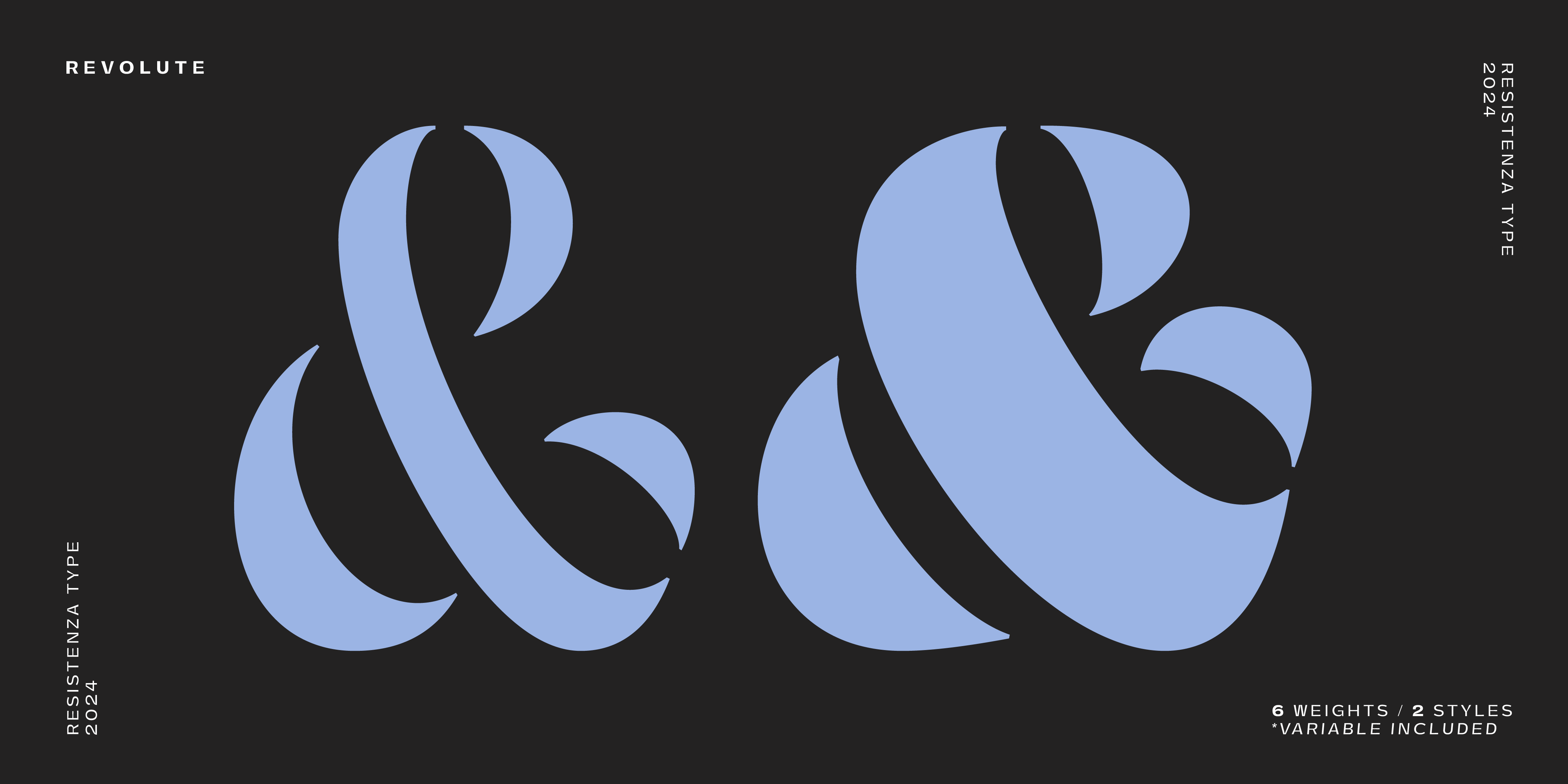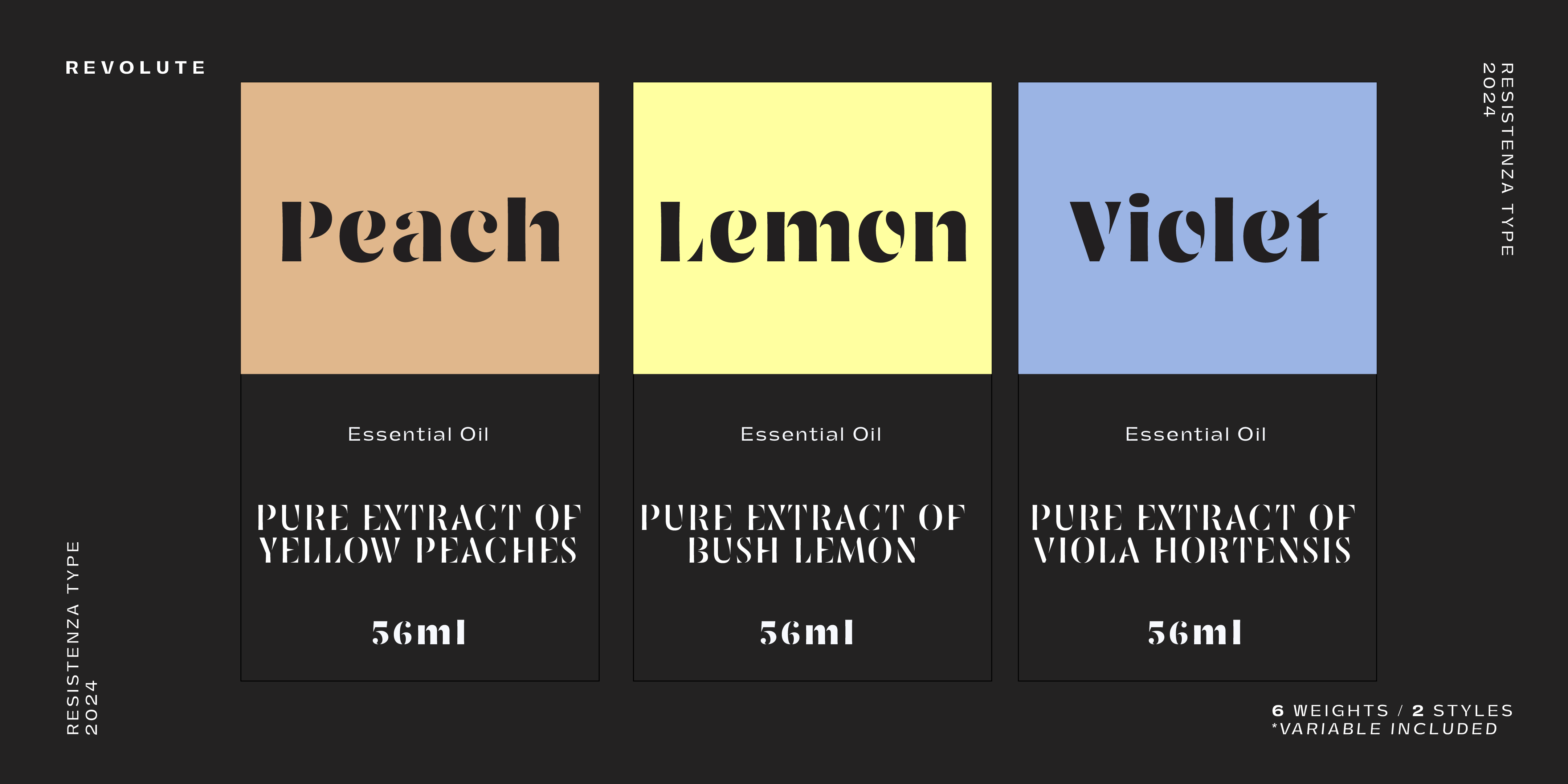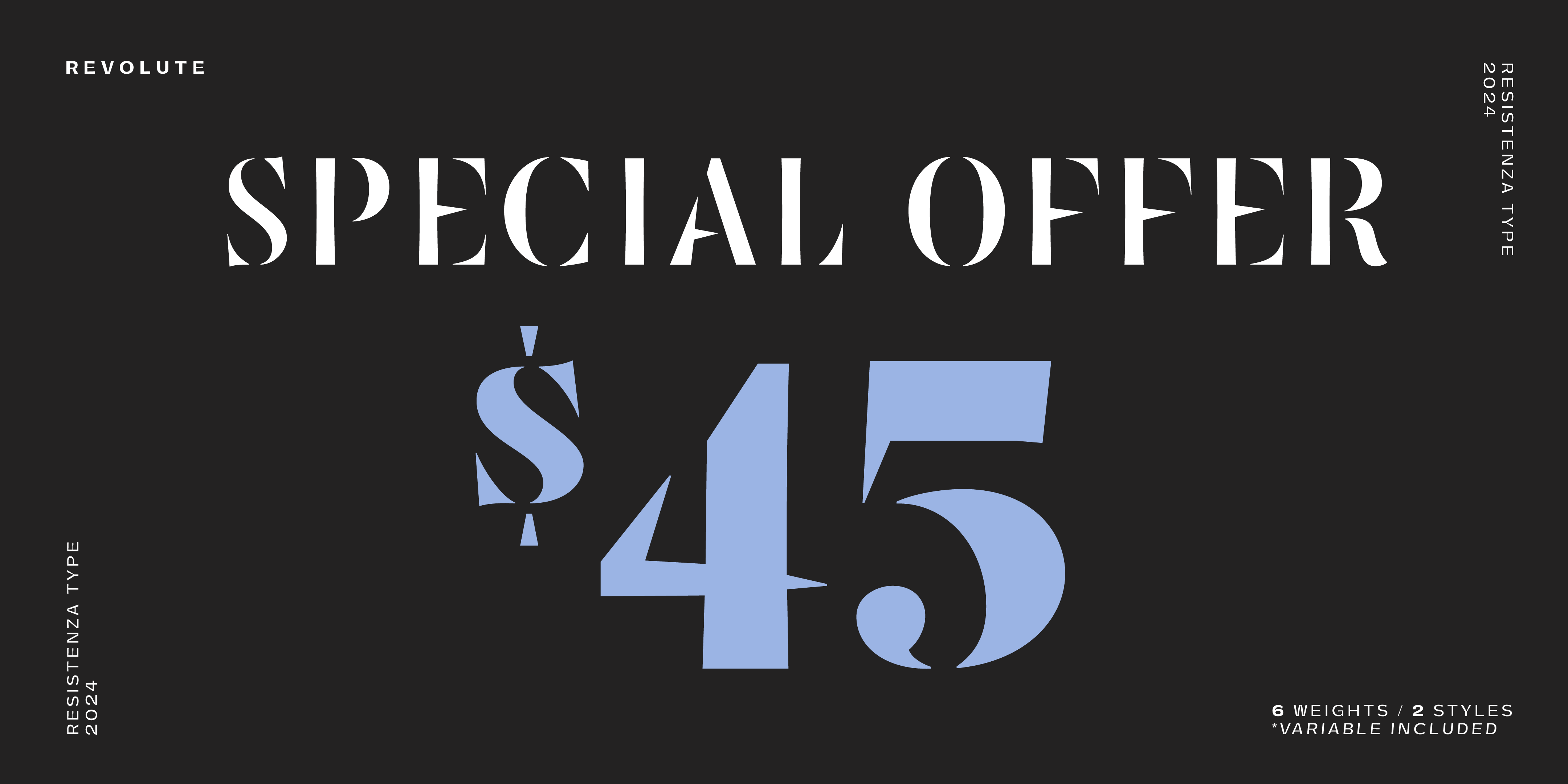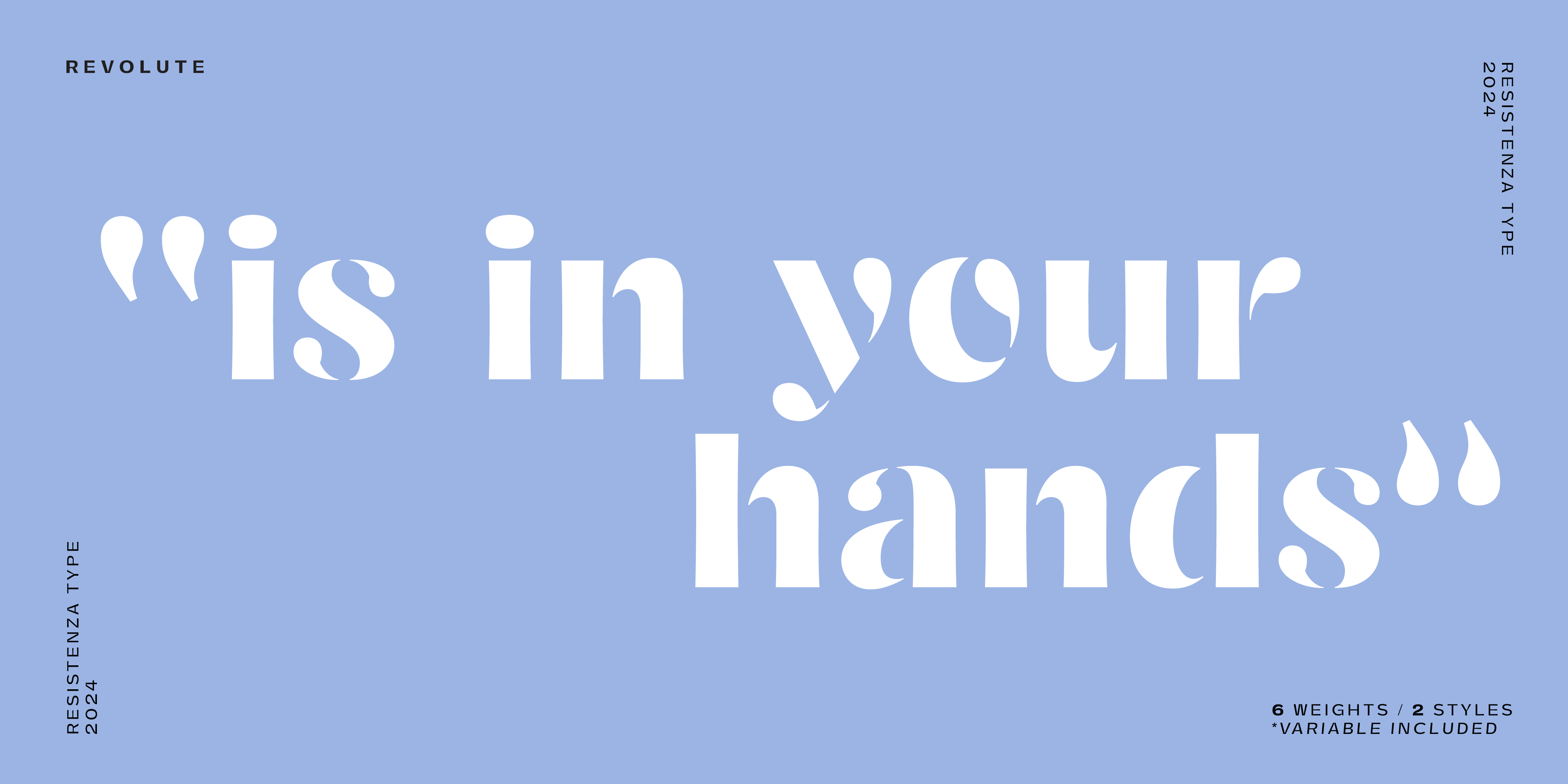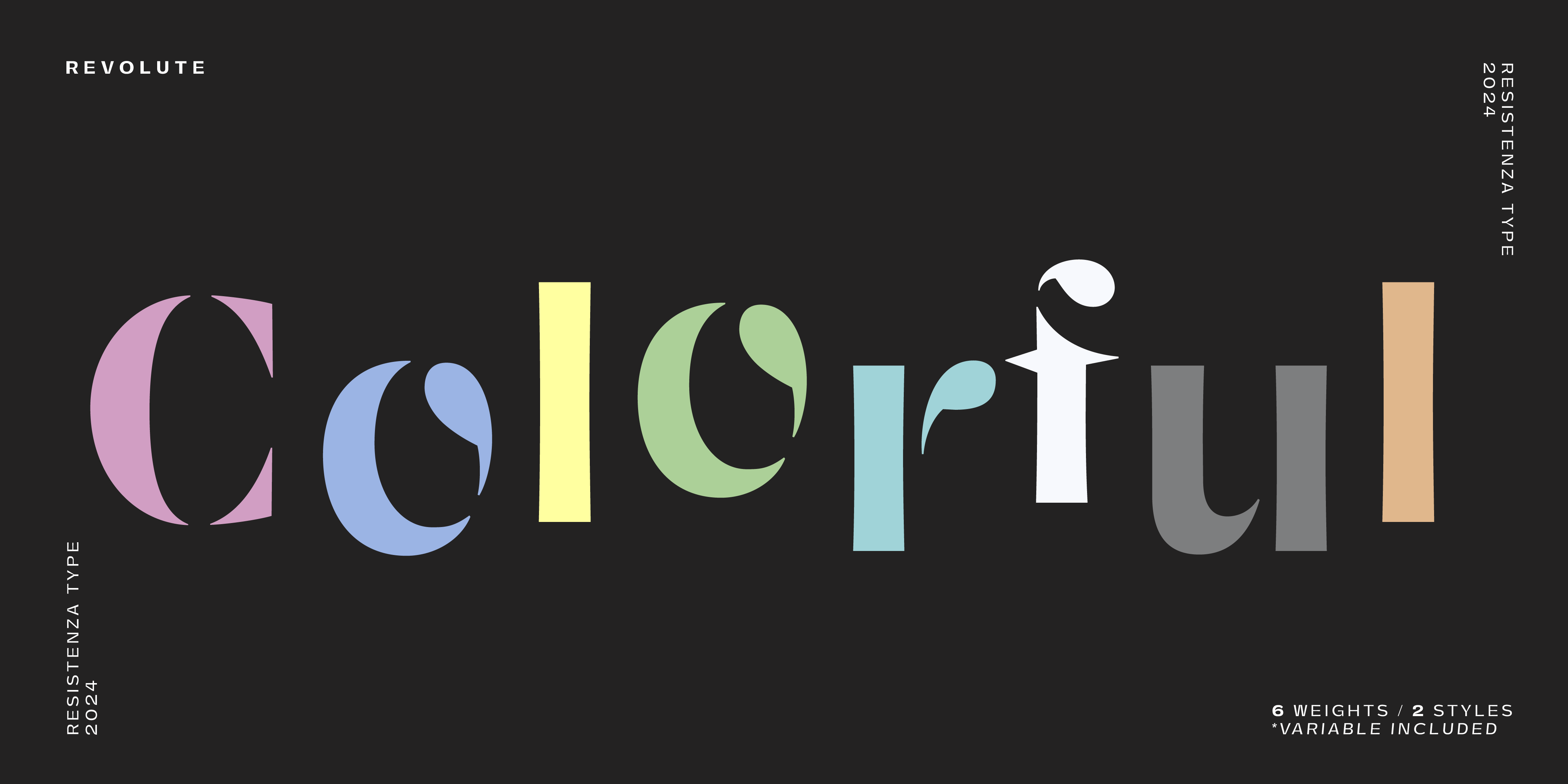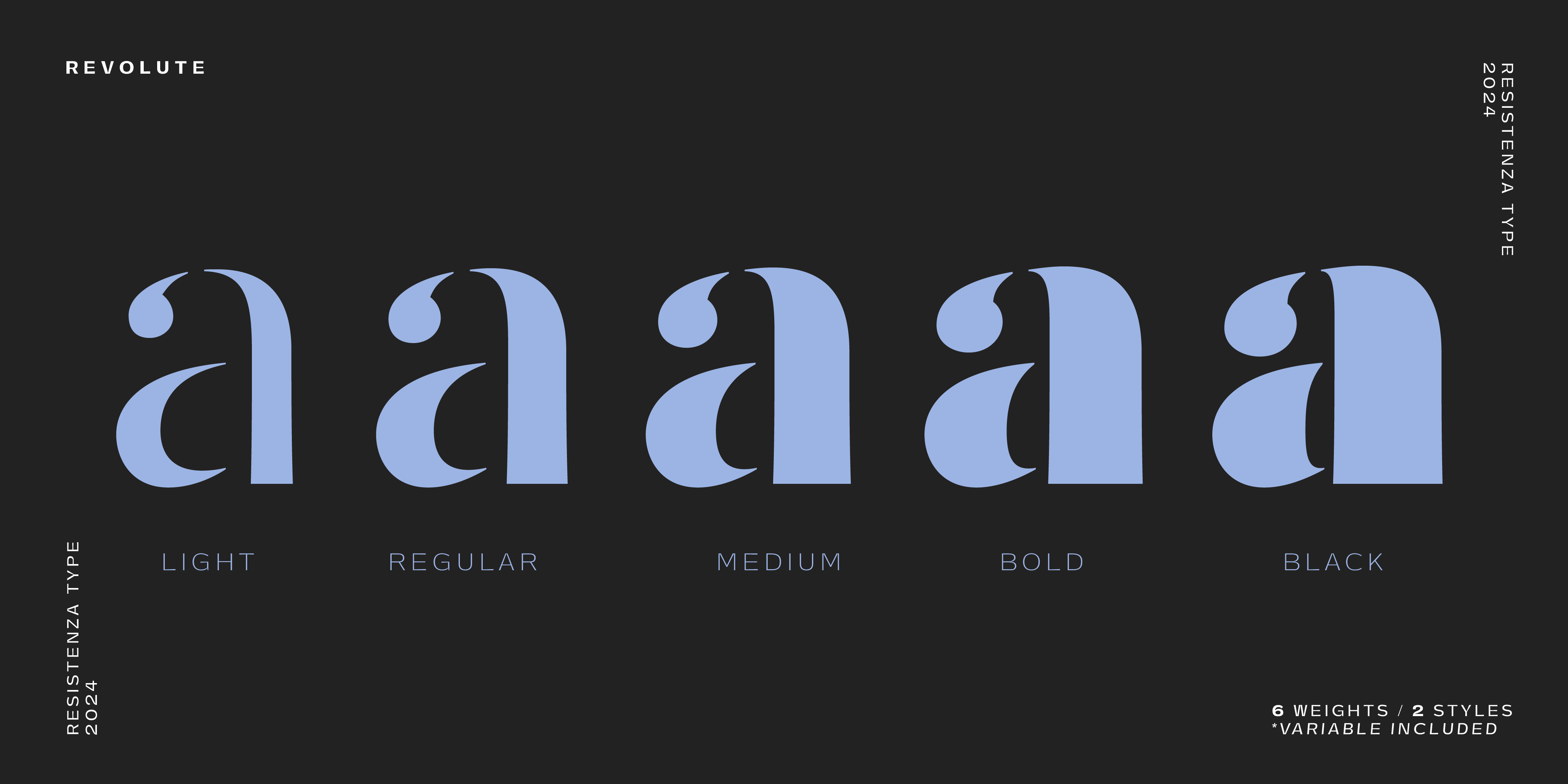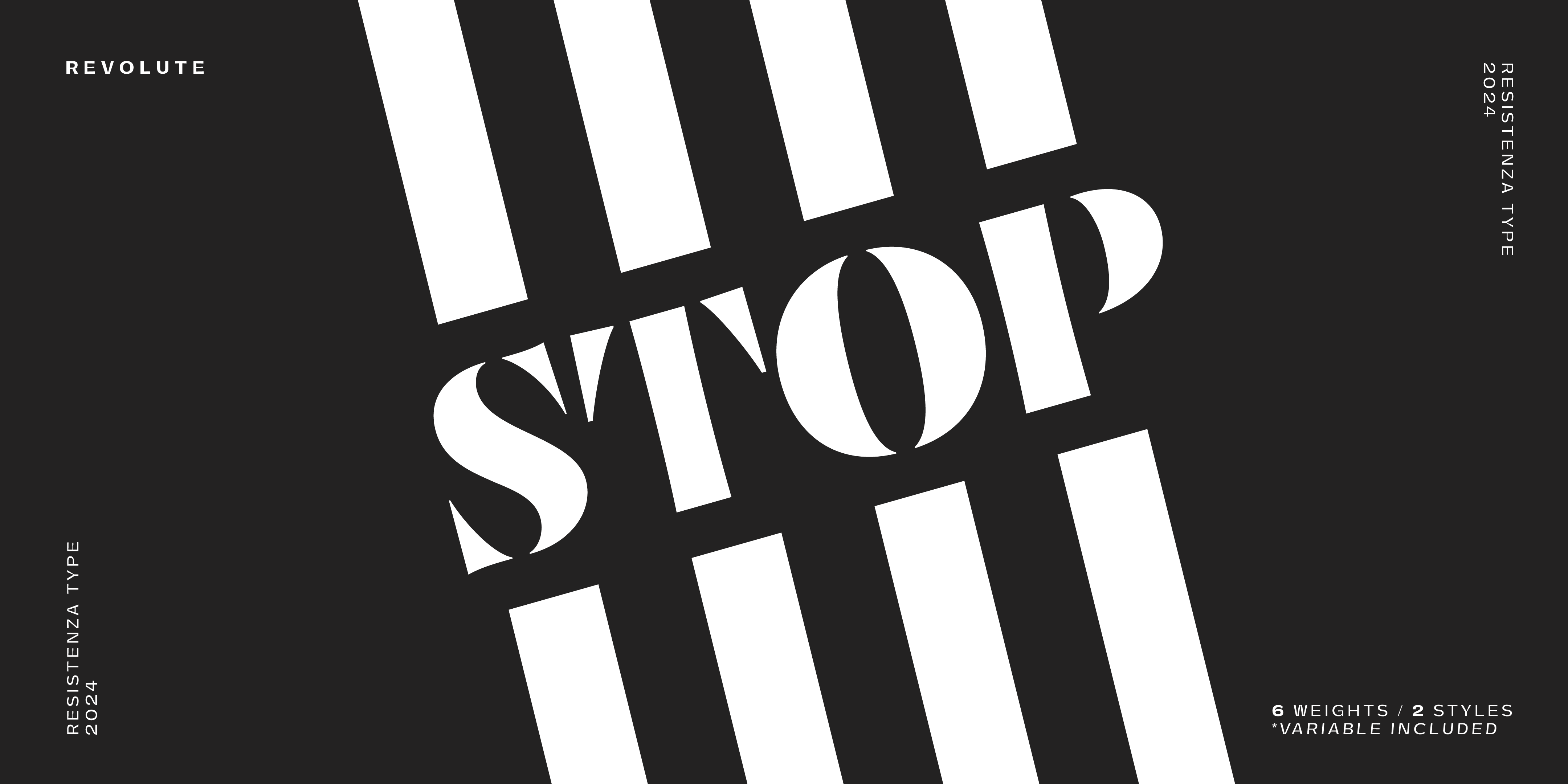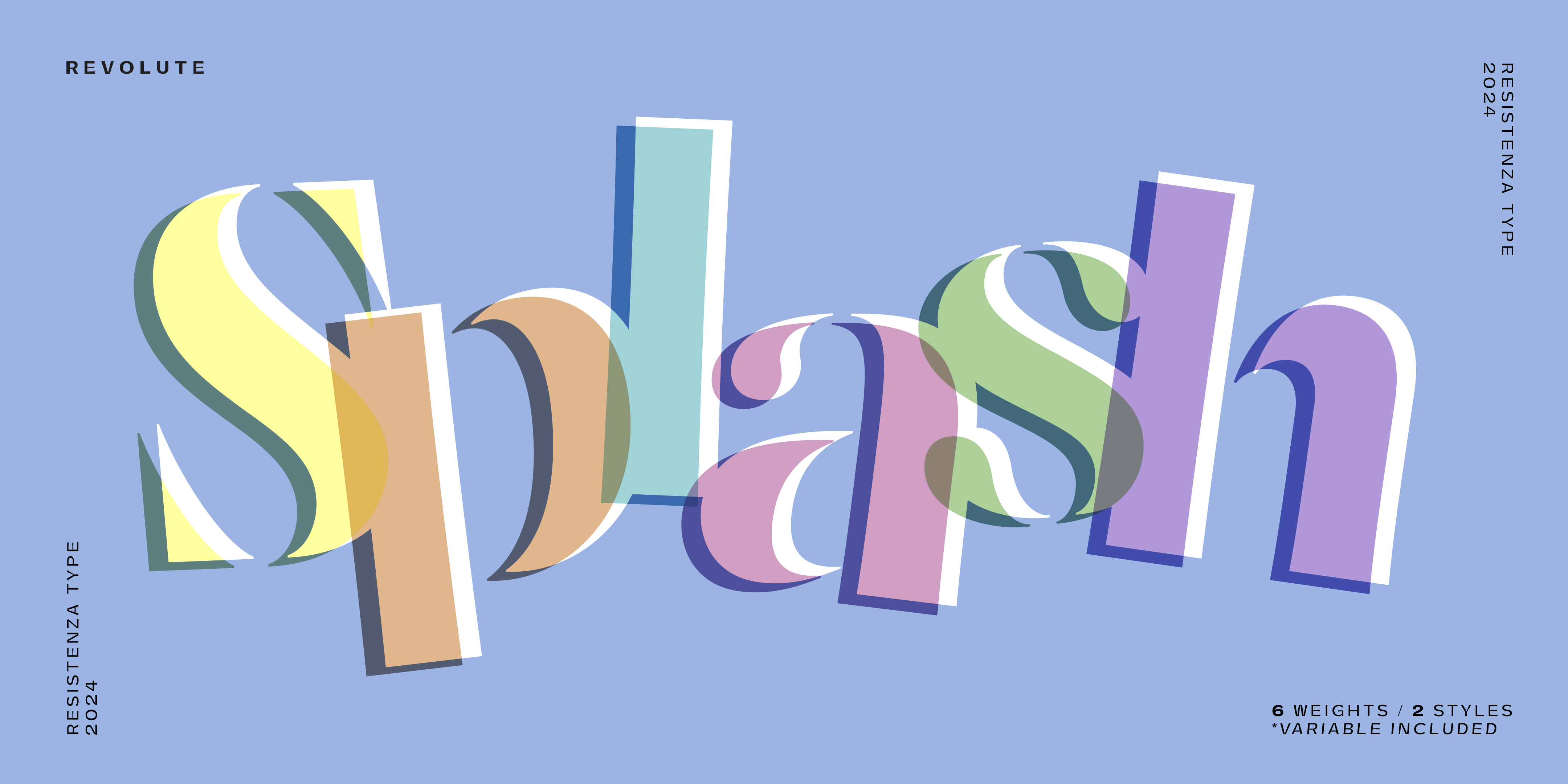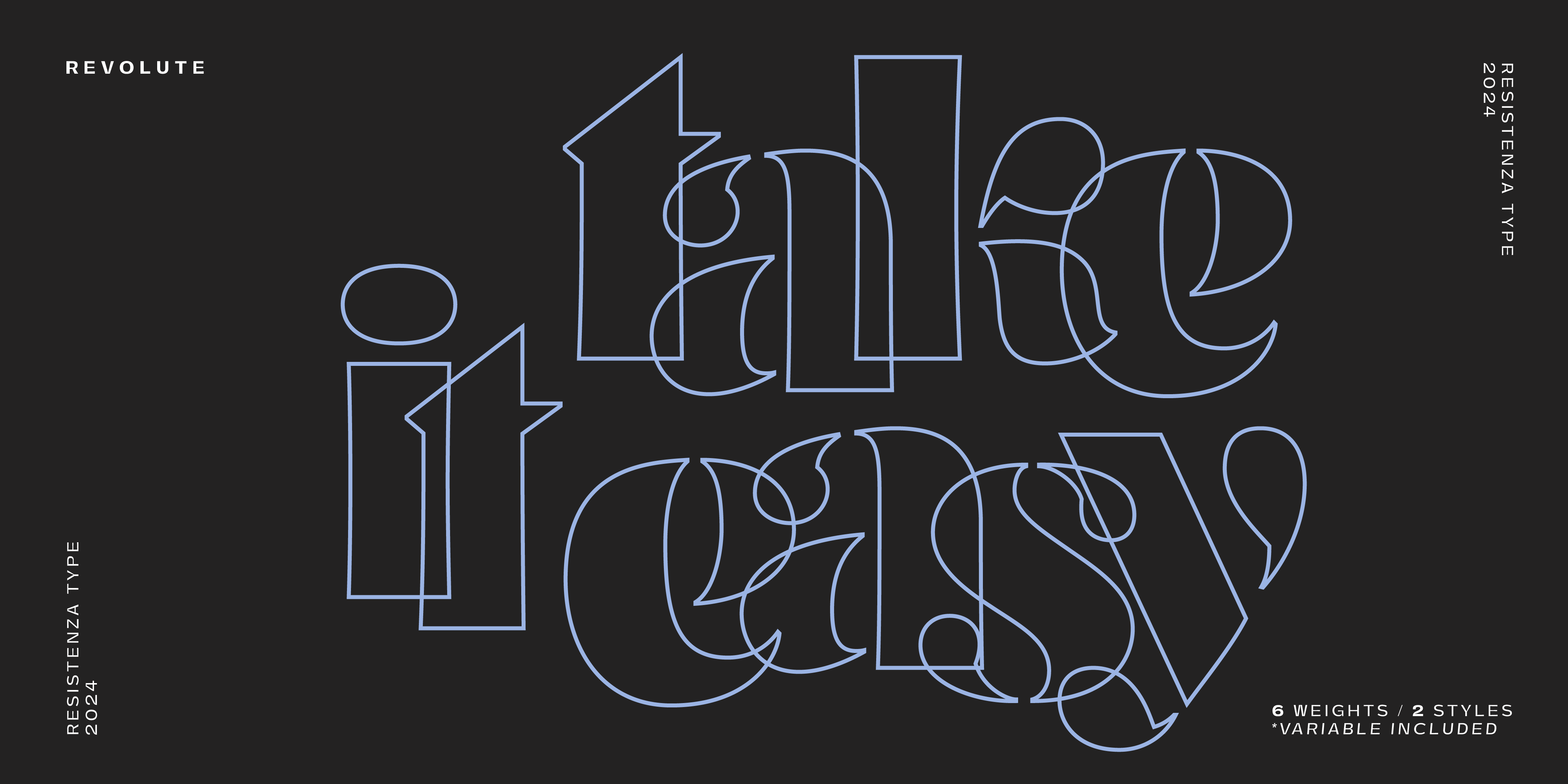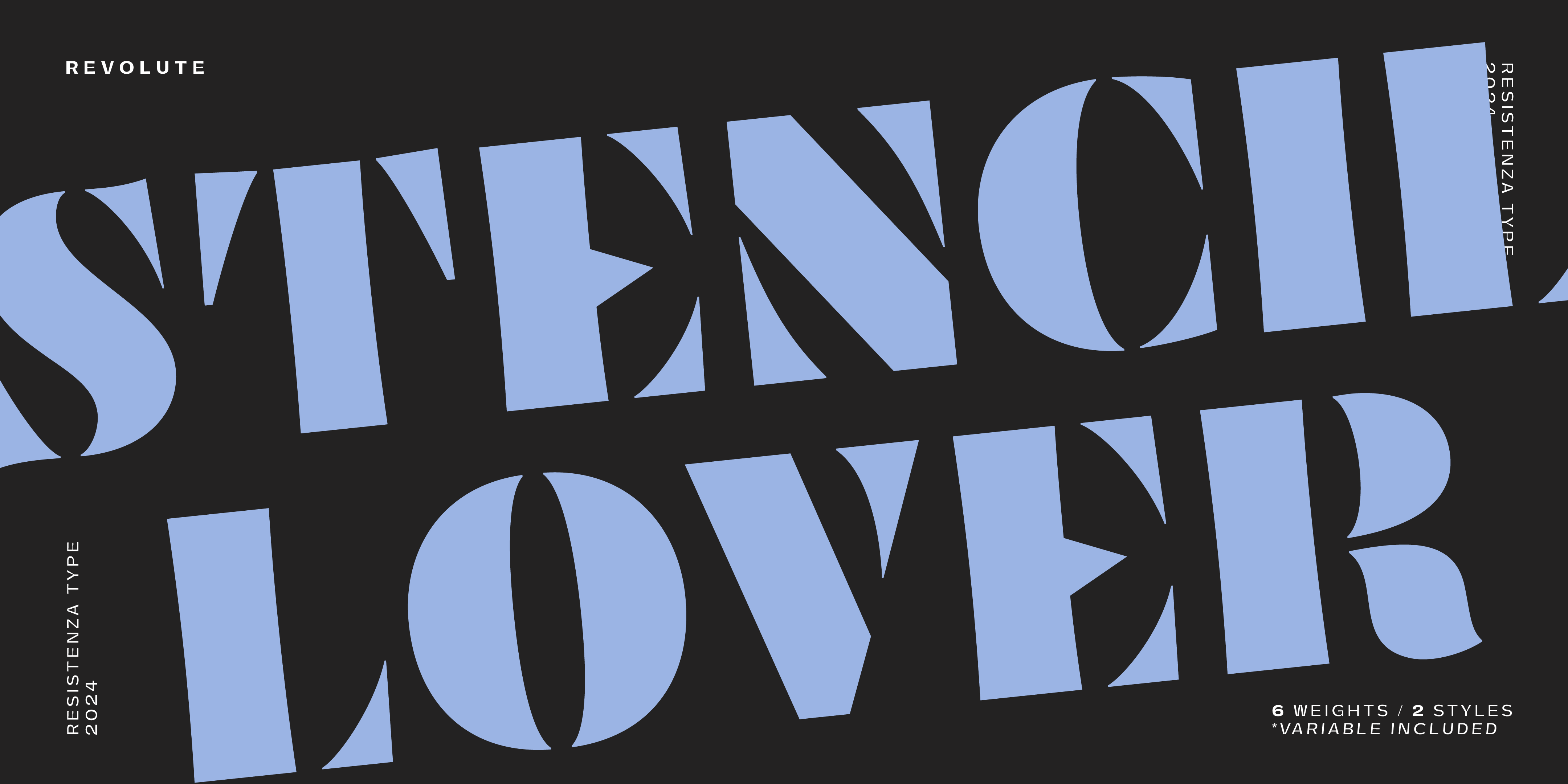
Revolute
Light Regular Medium Bold Black Display Light Slanted Medium Slanted Bold Slanted Black Slanted Display SlantedA sophisticated Stencil font from Nebiolo
Revolute
Designed by Resistenza Type FoundryInspired by the Resolut font designed by H. Brünnel for Fonderie Nebiolo in Torino in 1937, Revolute features letterforms with clean lines and subtle curves, creating a balanced and harmonious stencil. This design reflects a timeless aesthetic, blending historical influence with modern sensibilities, making it a versatile choice for various design projects. Whether you're working on branding, signage, or any project that requires a striking display font, Revolute offers a unique blend of elegance and functionality. The stencil design, characterized by its cut-out sections, adds an element of intrigue and creativity, making it stand out from traditional solid fonts. To further enhance your design toolkit, here are 12 additional stencil fonts that are perfect for display purposes.